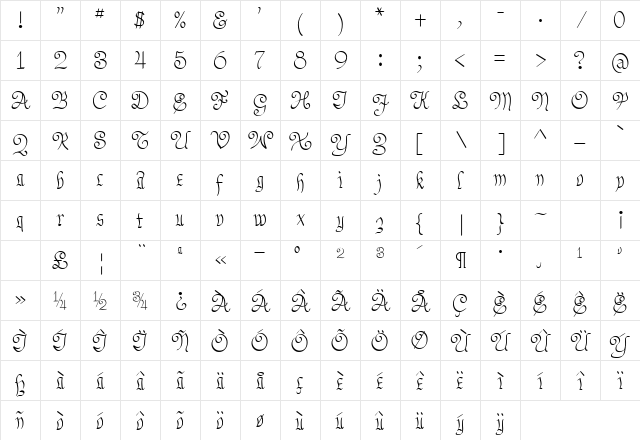
LastBigFling Regular
Design Context for LastBigFling
LastBigFling is a composed and adaptable typeface that performs quietly and consistently across a wide range of design contexts.